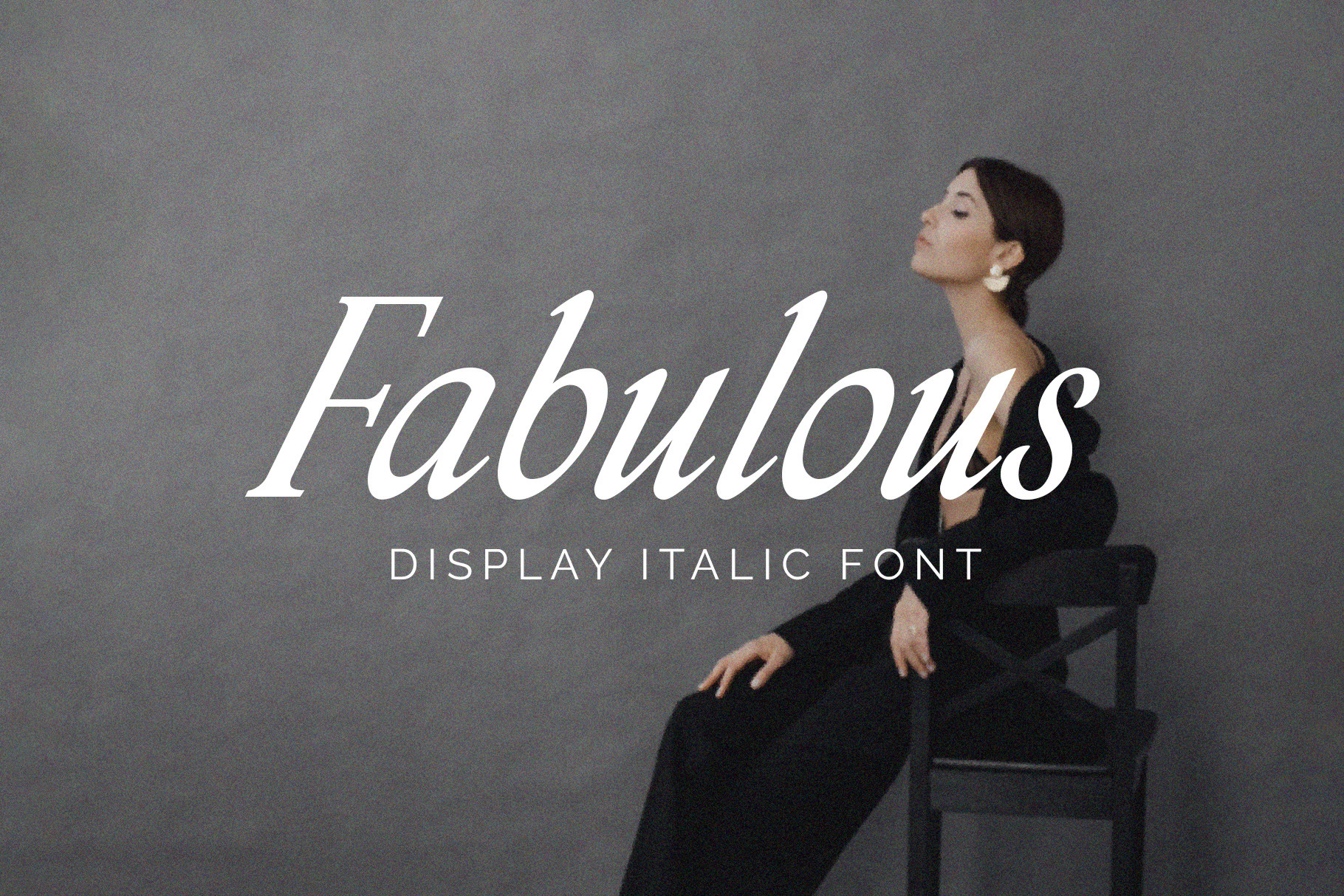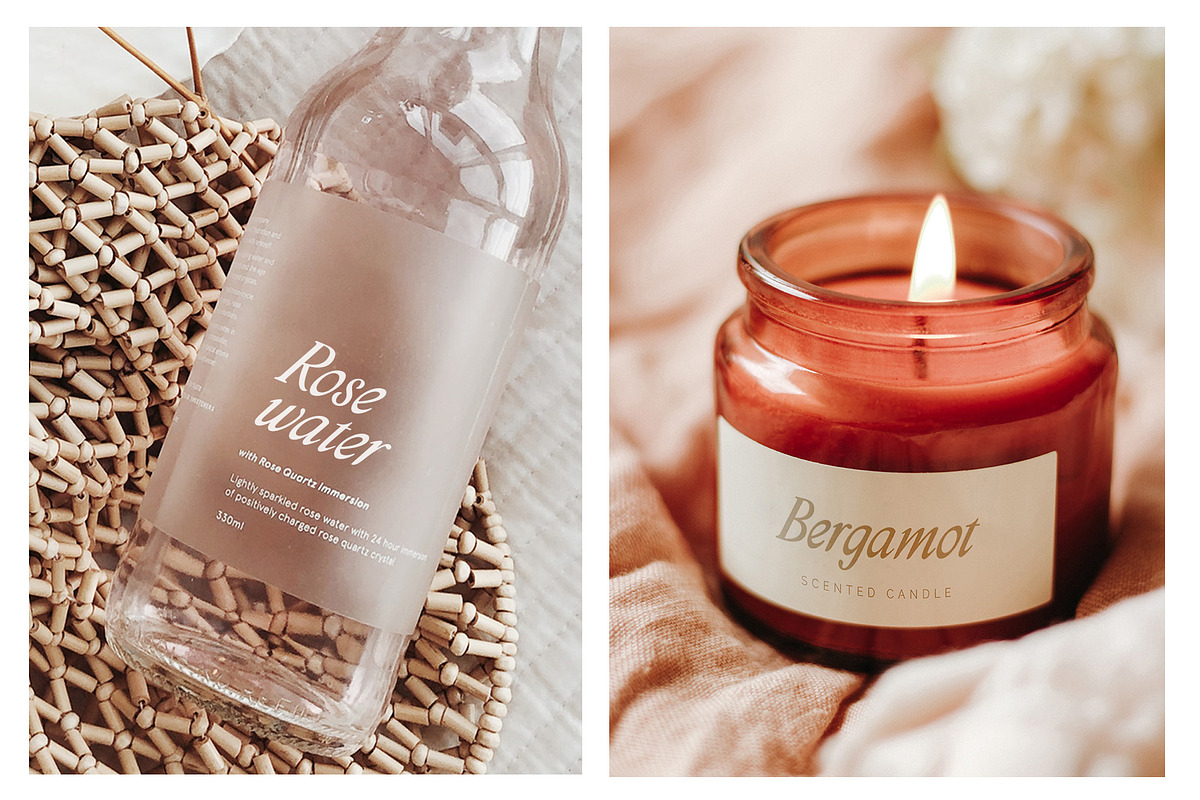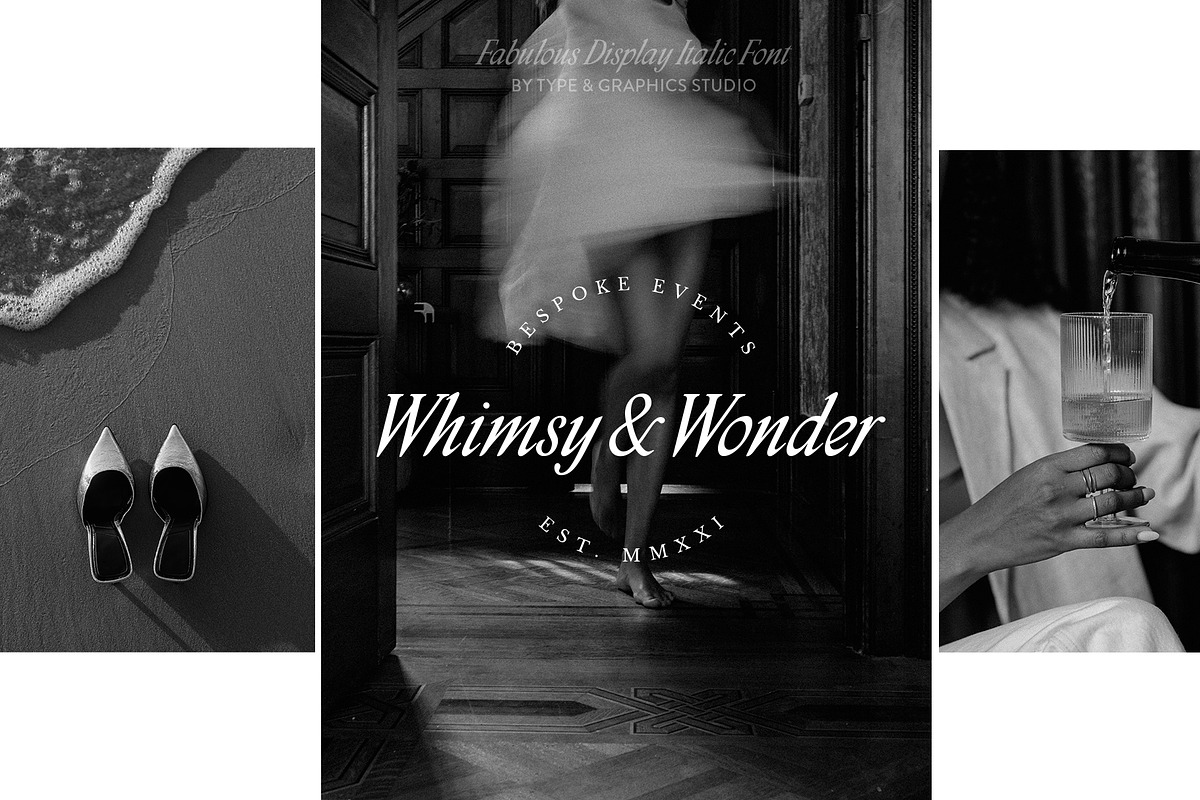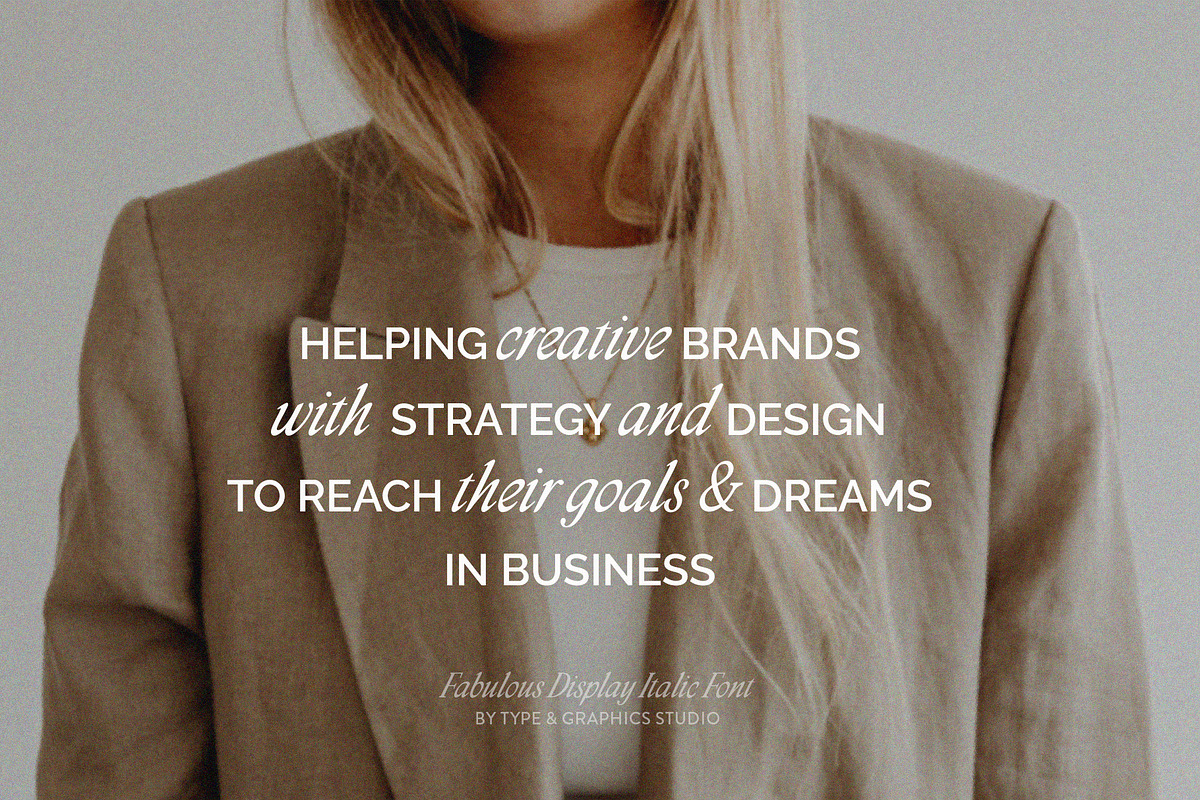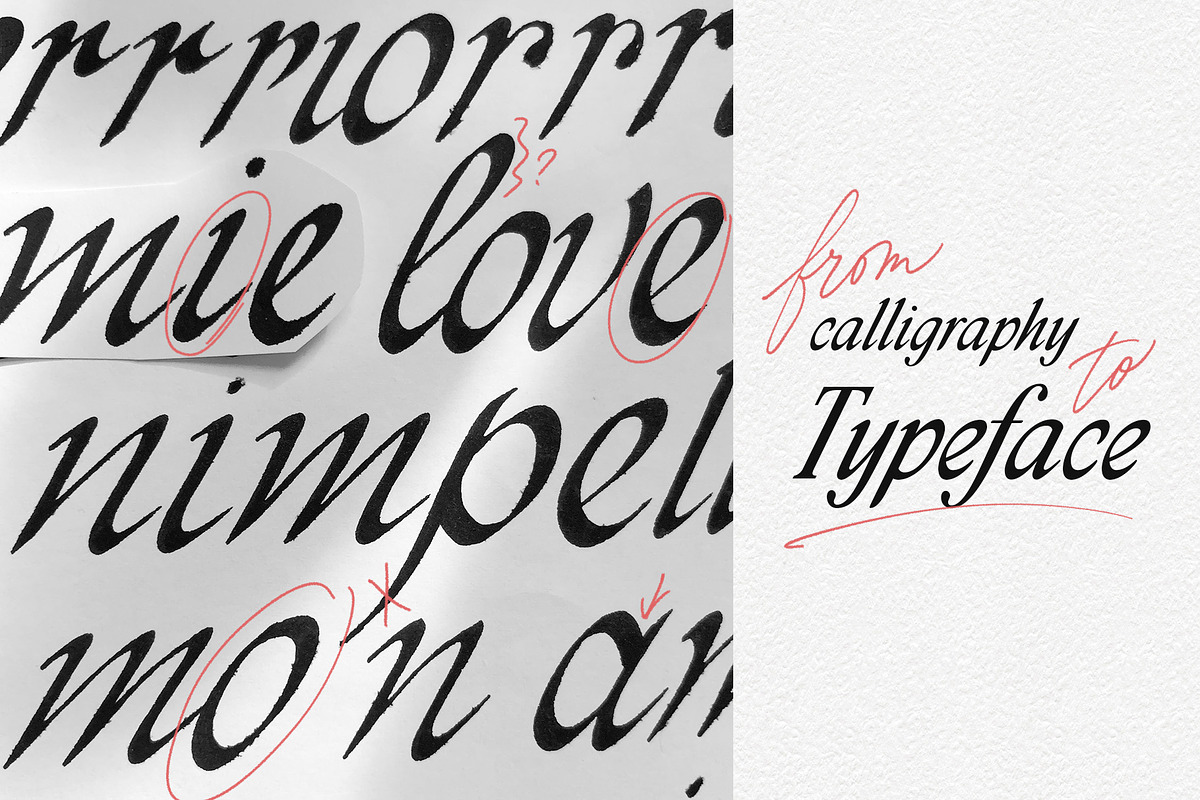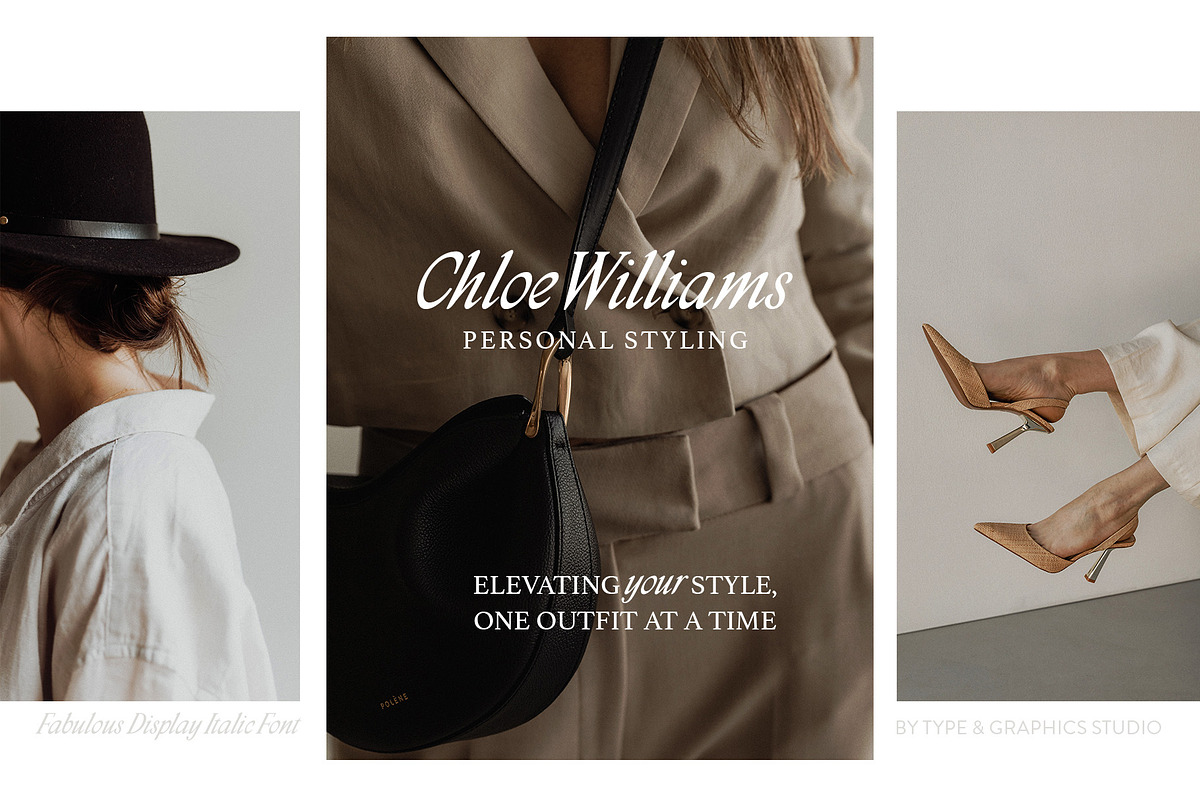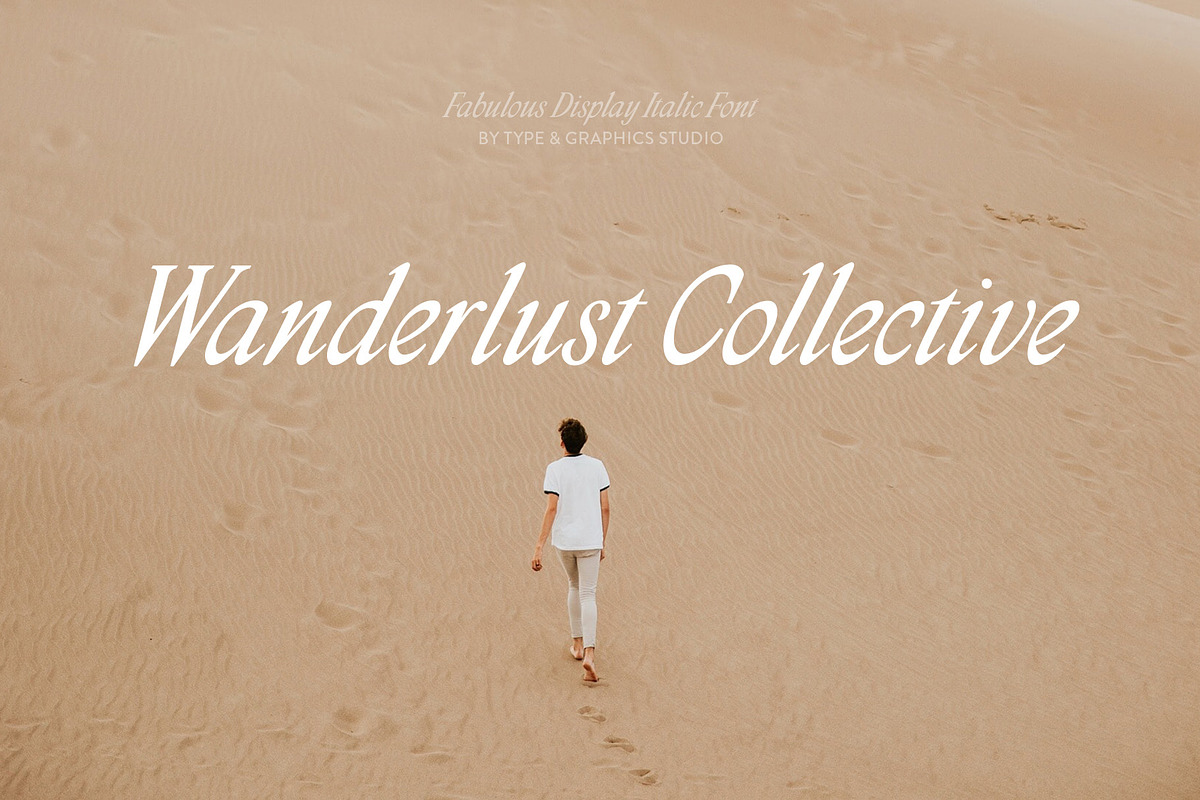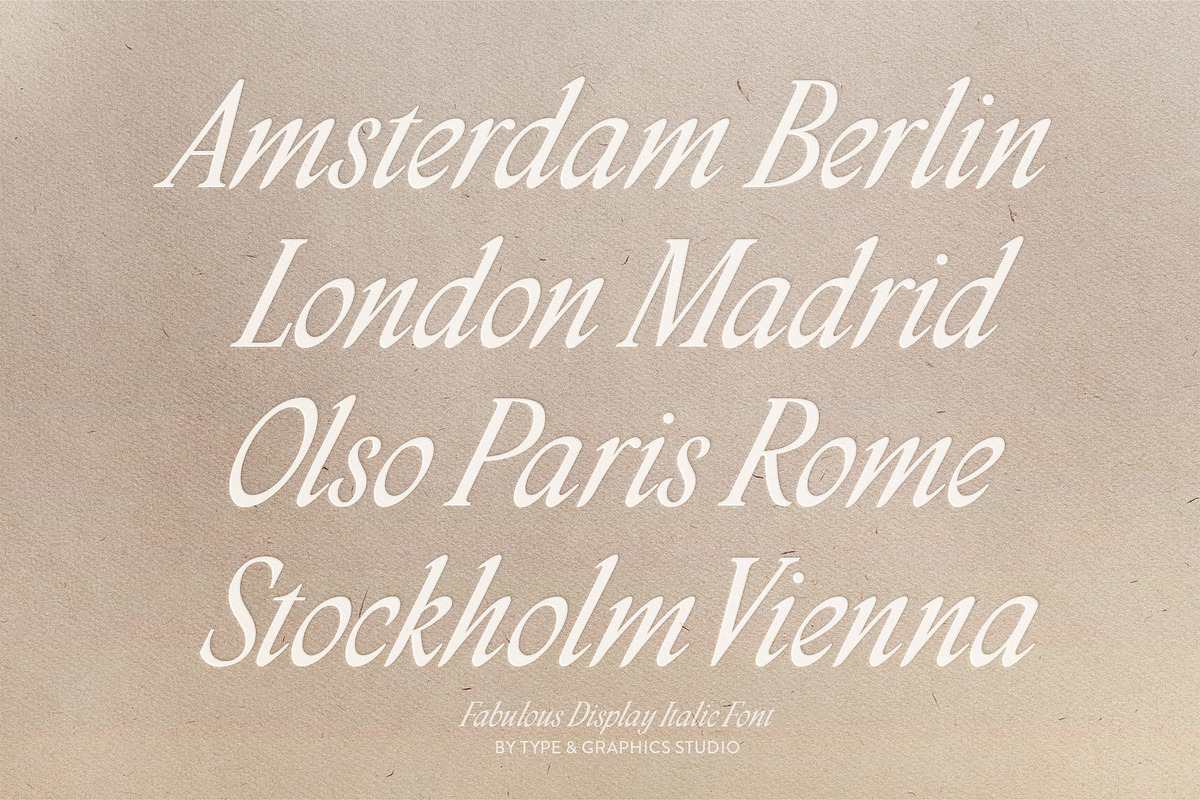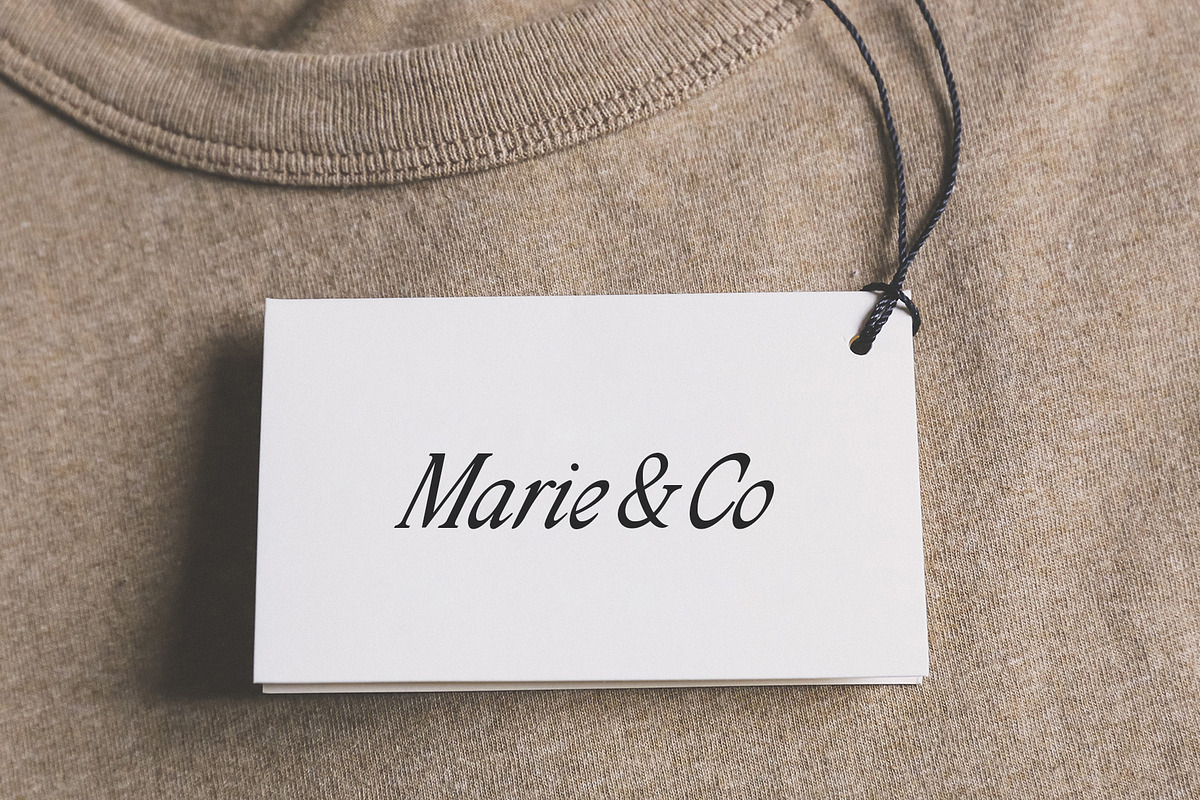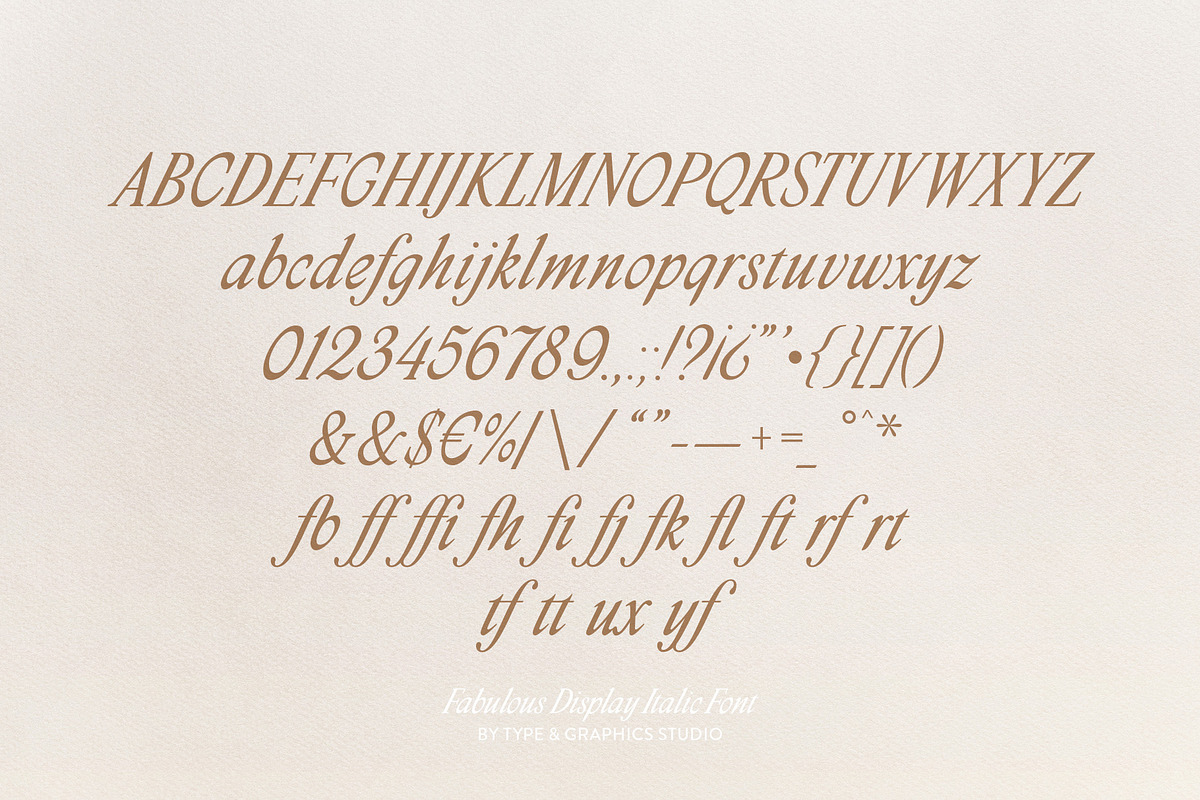
Fabulous Display Italic Font
Introducing Fabulous Display Italic, a refined font designed to bring elegance to your creative projects.
This sophisticated font offers an elevated sense of style, making it perfect for personal branding, logos, headings, and adding emphasis to important words within quotes. Originally born from calligraphy practice, it has evolved into a font designed with precision and a clean, modern aesthetic.